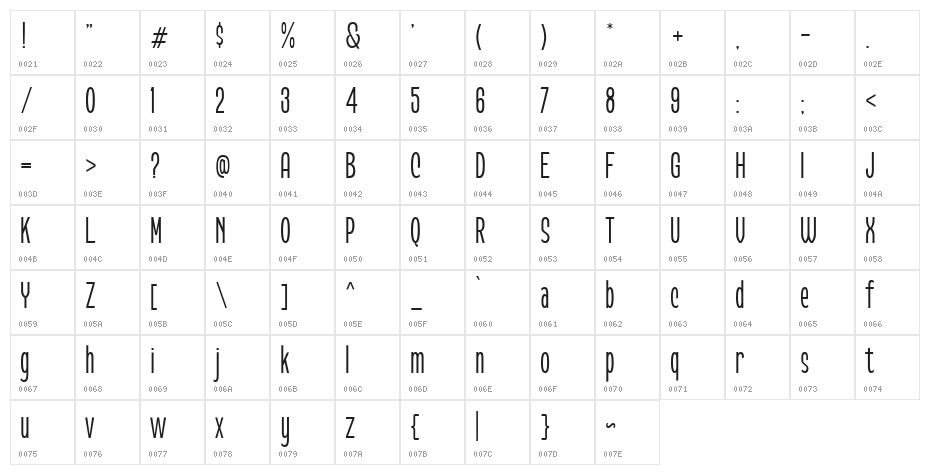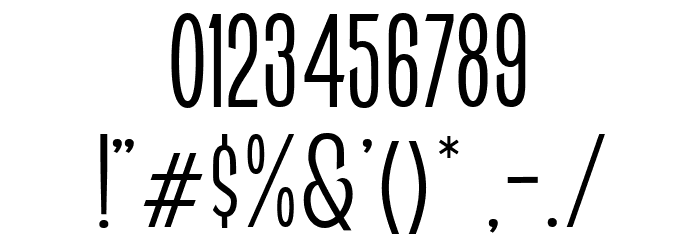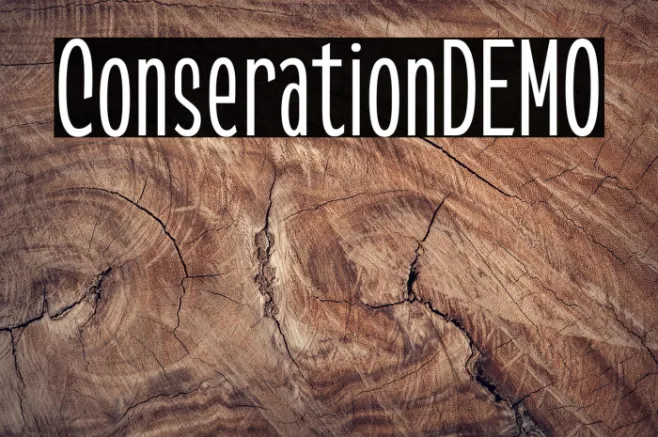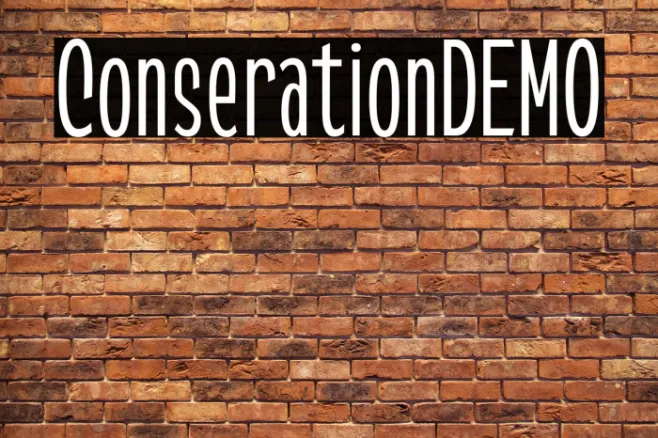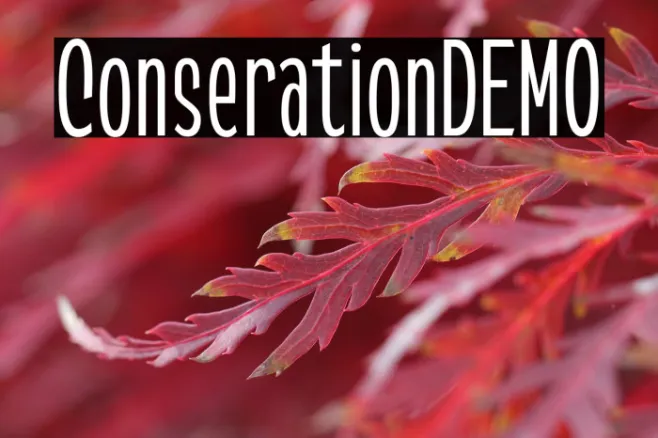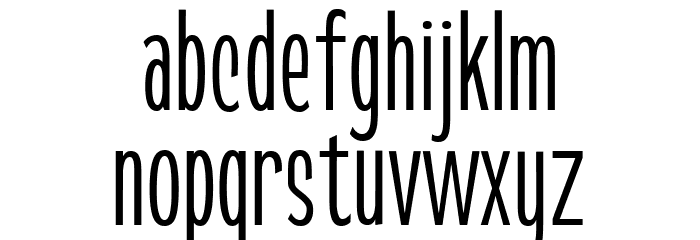
ConserationDEMO Font
ConserationDEMO Description
This font features a tall, narrow design with a clean and modern aesthetic. The characters are uniformly structured, providing a consistent and cohesive look across both uppercase and lowercase letters. The numerals are well-proportioned, matching the overall height and style of the alphabetic characters. Special characters are included, maintaining the same sleek and elongated appearance. The font's simplicity and elegance make it versatile for various design applications, offering a contemporary feel that is both professional and approachable.
| Proposed Projects | Ideal for branding, editorial design, posters, and digital interfaces where a modern and sleek look is desired. |